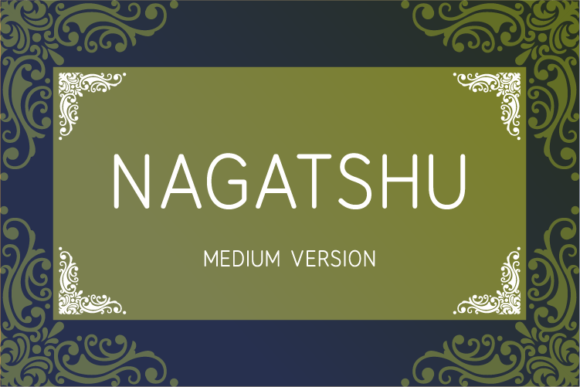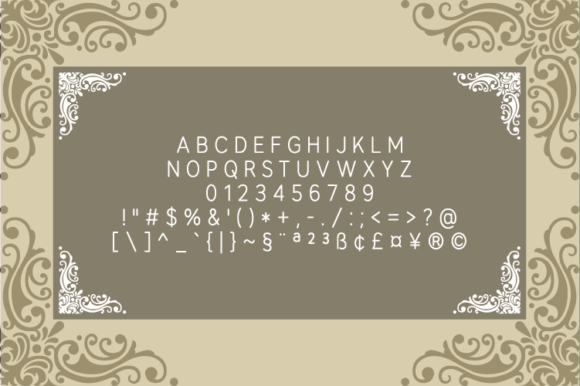
HomeSans Serif FontsNagatshu Medium Font Sans Serif Fonts Nagatshu Medium Font FacebookXPinterestWhatsApp Nagatshu Medium Font 1 of 2 About Nagatshu Medium Font Nagatshu is inspired by classic typography and brings its own unique style to any design project. Use this gorgeous and unique sans serif font to bring any DIY project to life! DOWNLOAD NOW People also explored The Meddley Font Beautiful Font Averyl Font Poster Font Wonderone Beautiful Font Fesch Font Mindfulness Font Rain Font Naira Font 252 0 TagsNagatshu Medium Font Previous articleNagatshu Semi-Bold FontNext articleNagatshu Regular Font LEAVE A REPLY Cancel reply Comment: Please enter your comment! Name:* Please enter your name here Email:* You have entered an incorrect email address! Please enter your email address here Website: Save my name, email, and website in this browser for the next time I comment. Personal Use Free Antaro Personal Use Free Read more about this font Just Smile Personal Use Free Read more about this font Valentine Chips Personal Use Free Read more about this font Love Story Personal Use Free Read more about this font BLOG Fonts That Capture the Spirit of New York City New York City is more than just a place—it’s an experience, a rhythm, a visual language... Elegant Wedding Invitation Fonts – Handwritten & Script Fonts Where to Buy American Fonts Online in 2024 5 Fonts That Will Dominate Design Trends in 2026